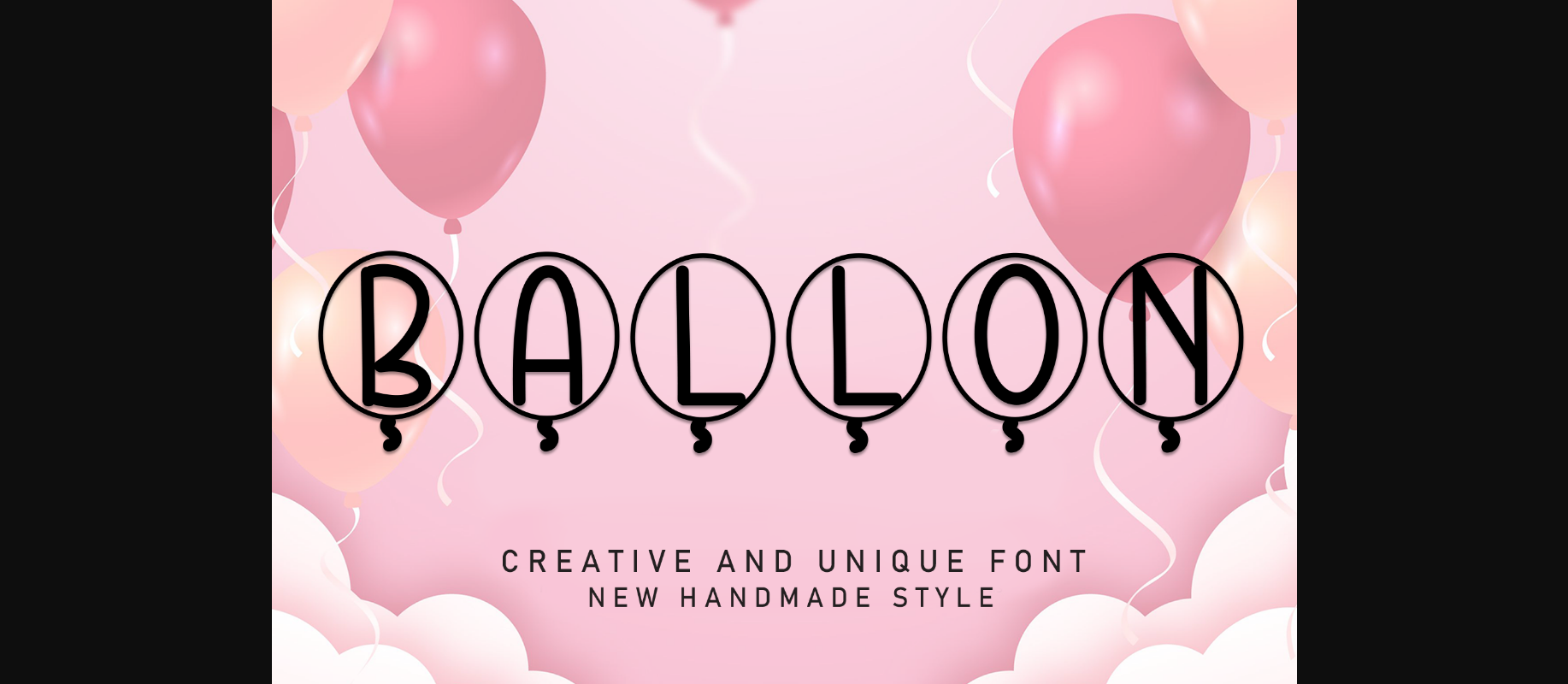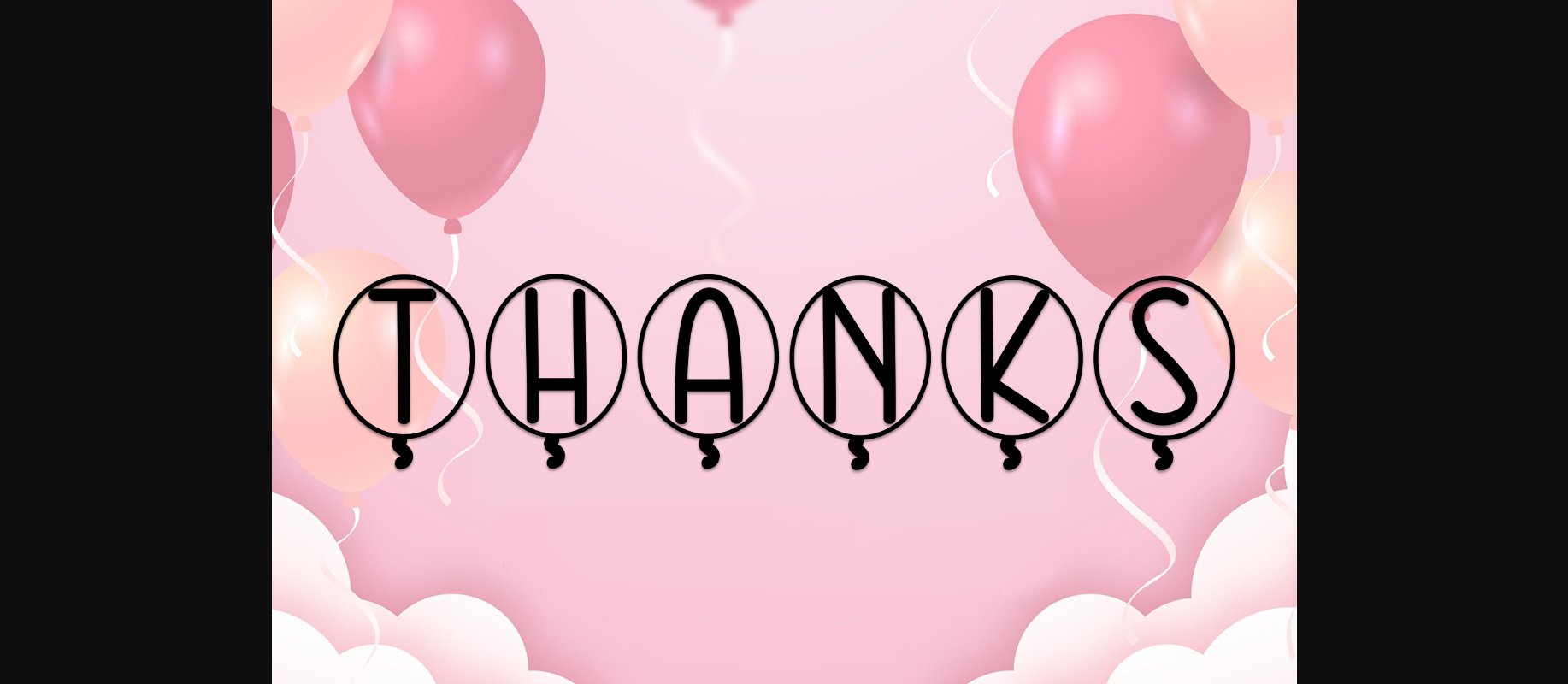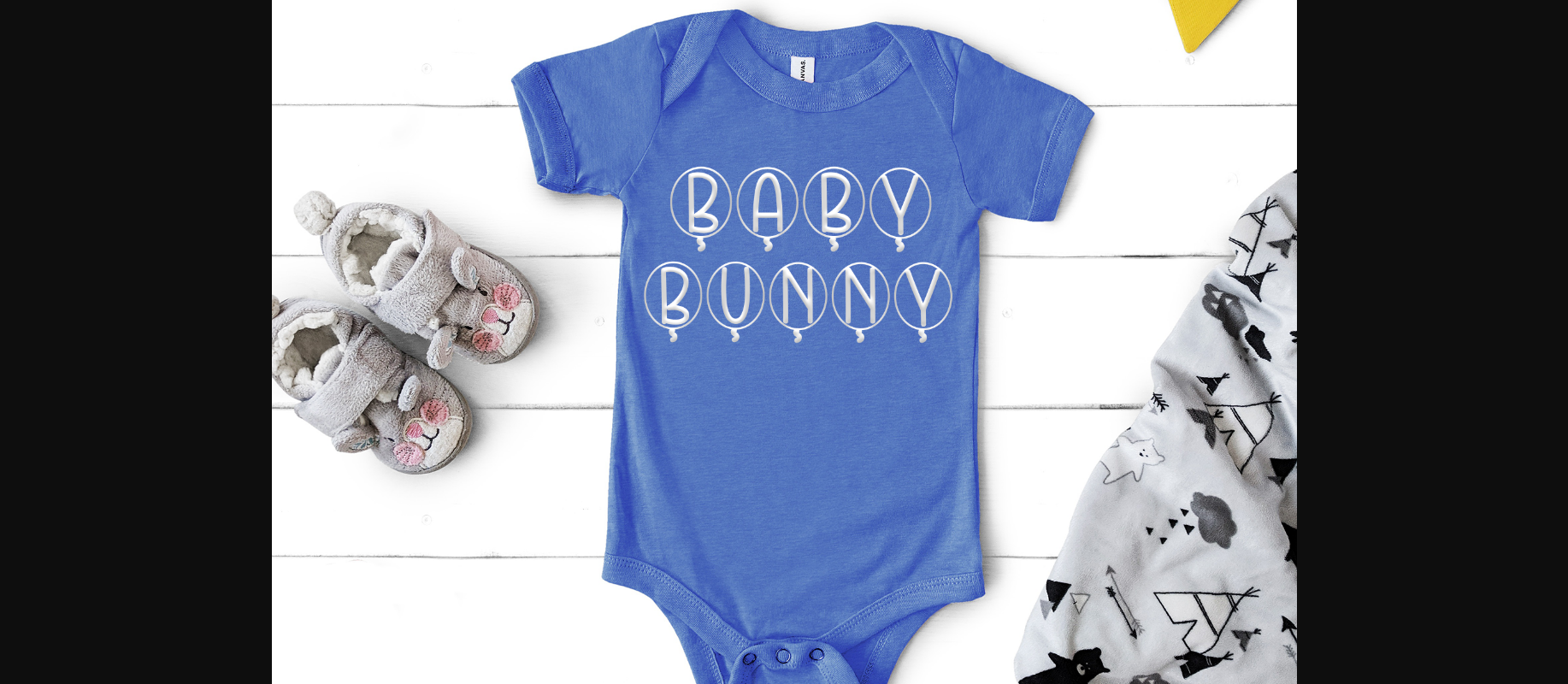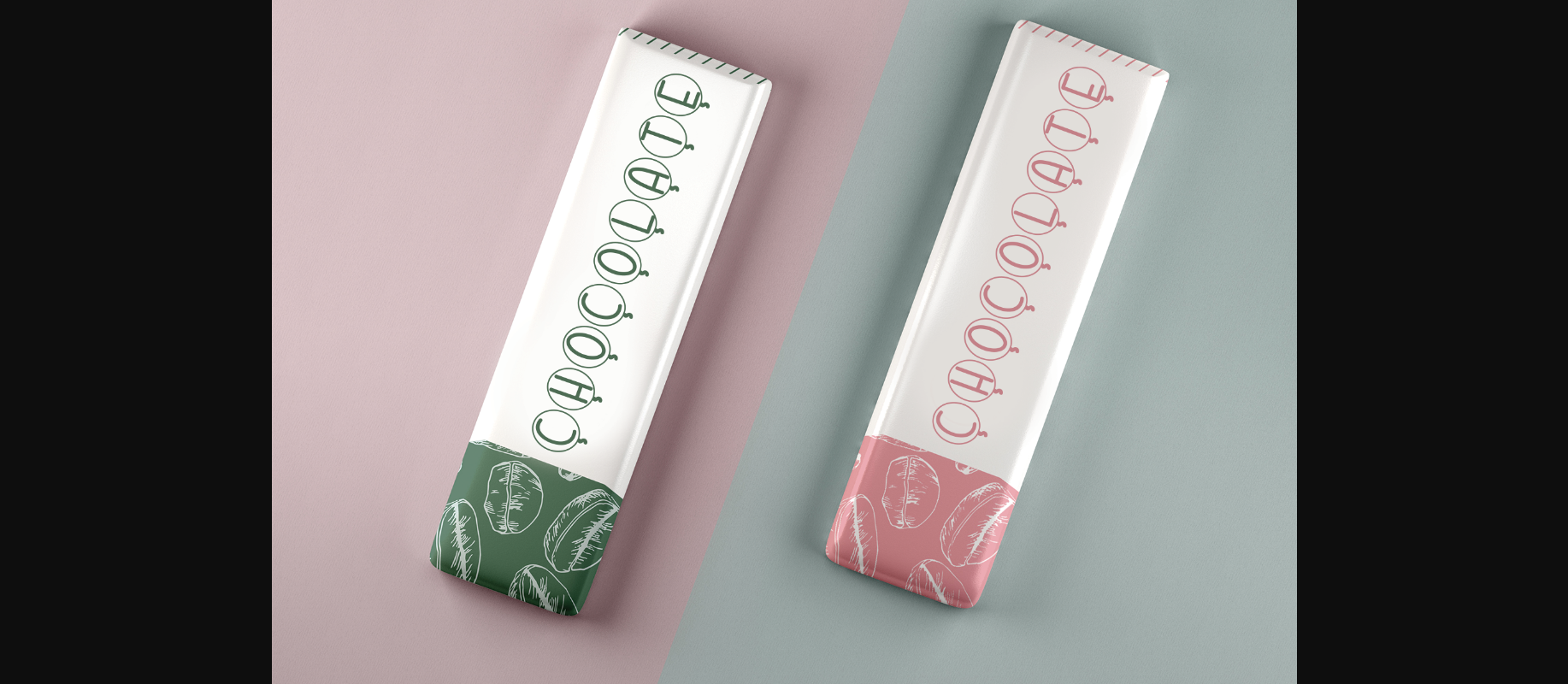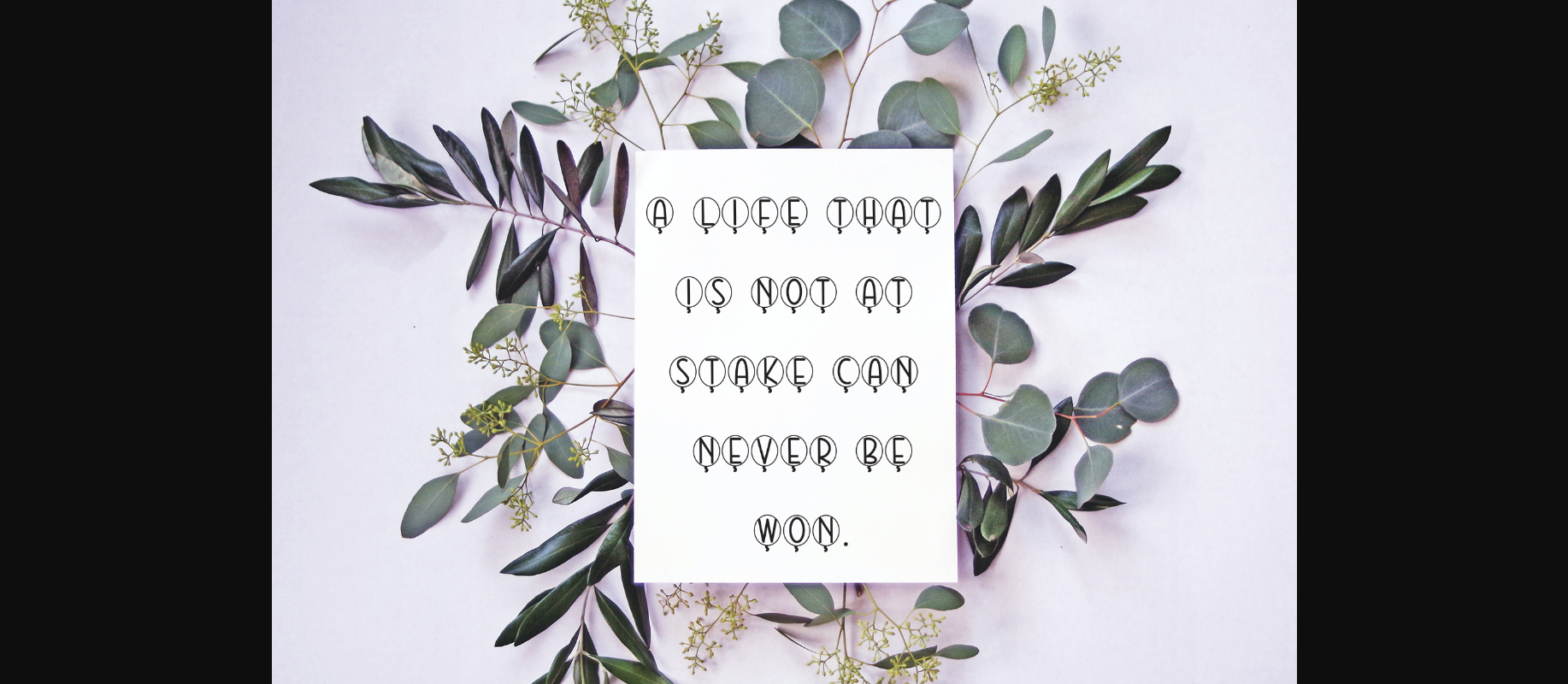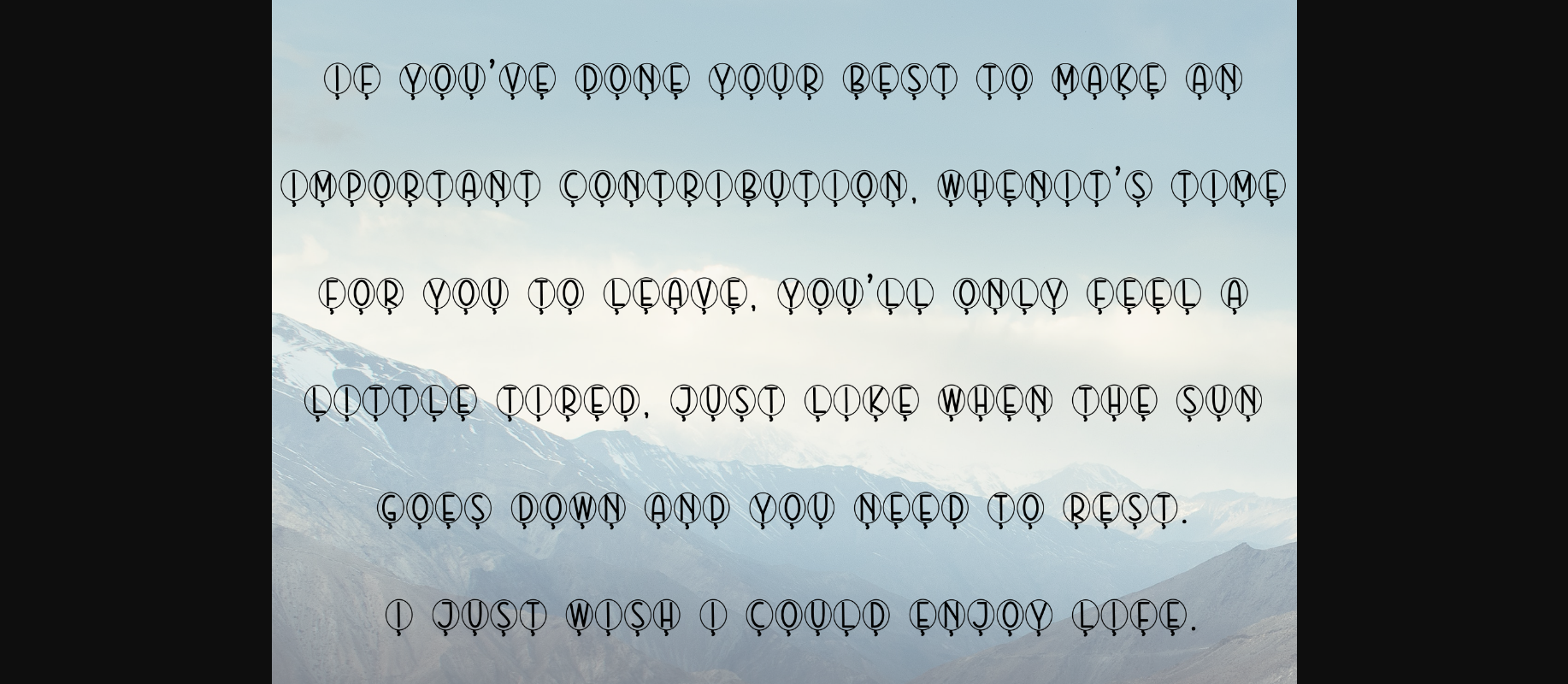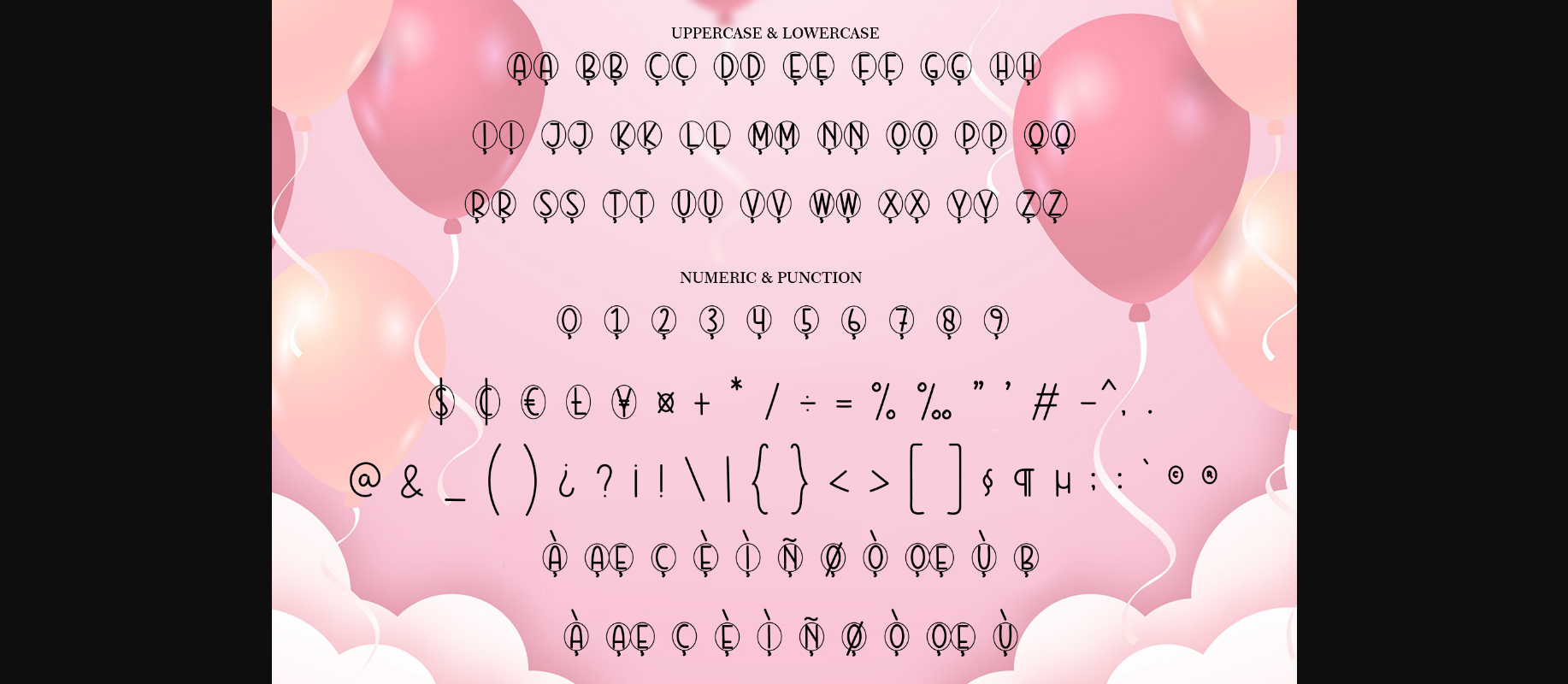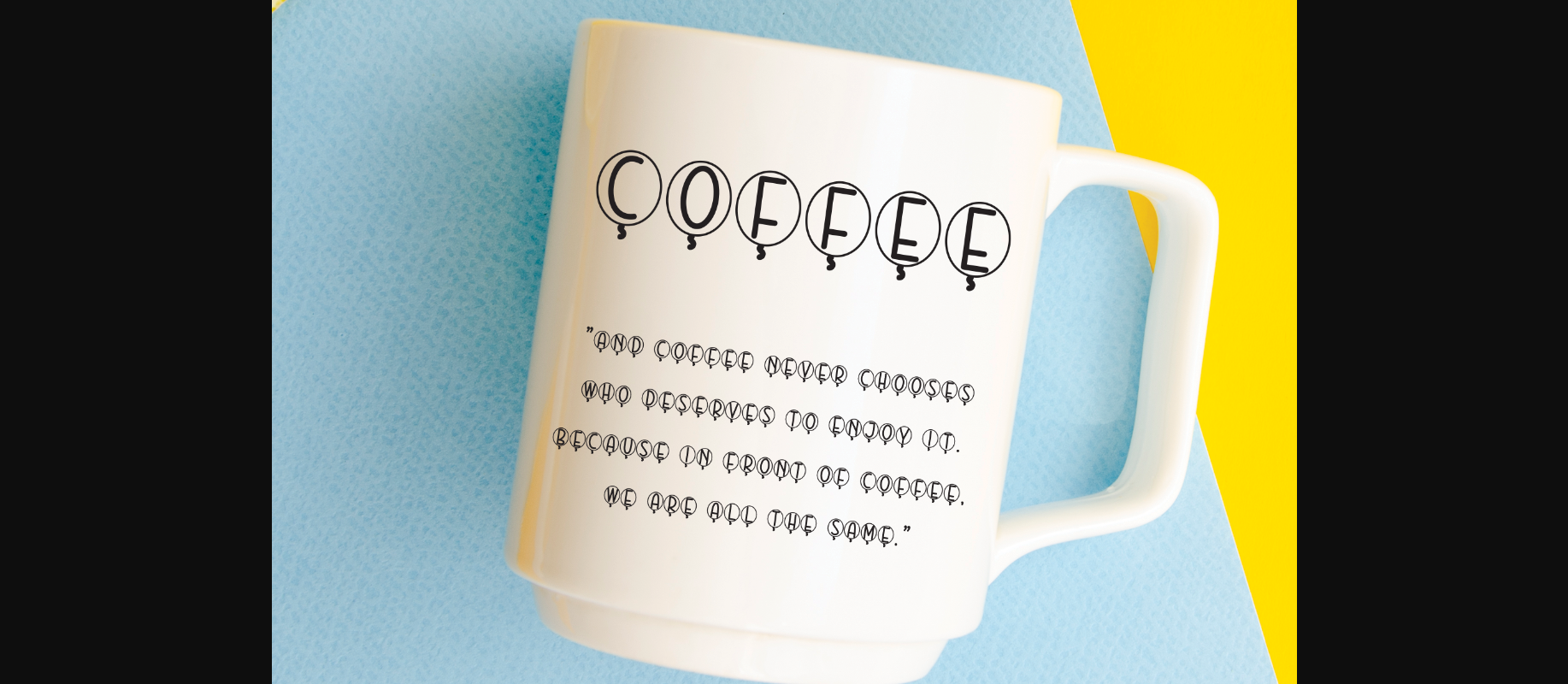
HomeDecorative FontsBallon Font Decorative Fonts Ballon Font FacebookXPinterestWhatsApp 1 of 10 ... Ballon Font Poster 2... Ballon Font Poster 3... Ballon Font Poster 4... Ballon Font Poster 5... Ballon Font Poster 6... Ballon Font Poster 7... Ballon Font Poster 8... Ballon Font Poster 9... Ballon Font Poster 10... About Ballon Font Ballon is a cool, incredibly cute, and bubbly display font. Add it to each of your party invitations, swimming gathering, or pretty much any design that requires a touch of youth and joy. DOWNLOAD NOW People also explored Bolero Font Forgotten Dream Prince Frog Ronssita Font Hello Valentine Font Anastasya Font Lucy Carter Script Font Hugest Font Blowiz Font 316 0 TagsBallonBallon Font Previous articleCamping FontNext articlePure Blossom Font LEAVE A REPLY Cancel reply Comment: Please enter your comment! Name:* Please enter your name here Email:* You have entered an incorrect email address! Please enter your email address here Website: Save my name, email, and website in this browser for the next time I comment. Personal Use Free Quickline Personal Use Free Read more about this font Angelika Playful Personal Use Free Read more about this font Gonestones Personal Use Free Read more about this font Sushi Stroke Personal Use Free Read more about this font BLOG Free Fonts Risk: Why Free Fonts Can Be Dangerous for Designers Free Fonts Risk: Why Free Fonts Can Be Dangerous for Designers Using free fonts is a common practice in web and graphic design. However, the... Modern Sans-Serif Fonts That Brands Love in 2025 Elegant Wedding Invitation Fonts – Handwritten & Script Fonts 5 Fonts That Will Dominate Design Trends in 2026